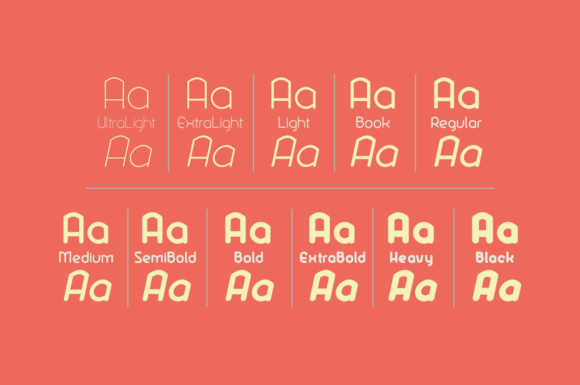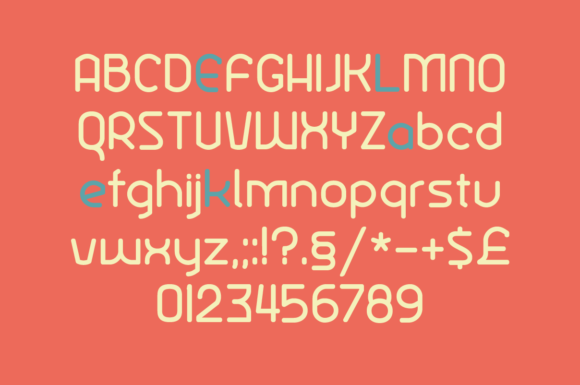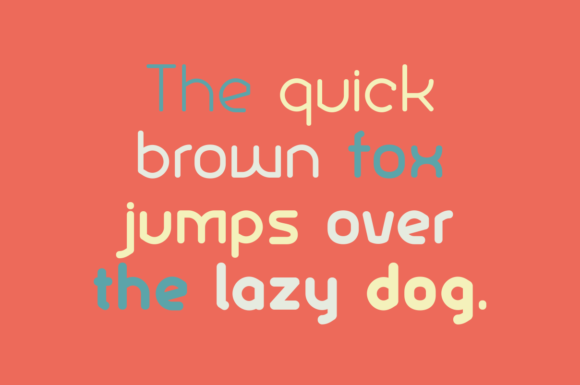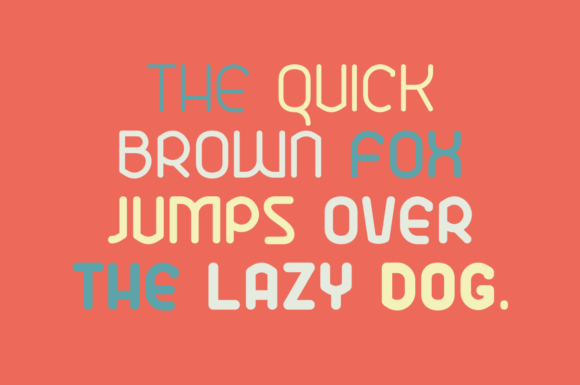
Introducing Ekela Font: The Ultimate Sans Serif for Creative Projects
Are you tired of using the same old fonts for your design projects? Look no further than Ekela Font, a minimal and neat sans serif font that’s perfect for adding a touch of modernity to your creative ideas. With its clean lines and simple aesthetic, Ekela Font is an incredibly versatile typeface that can easily be matched to a wide range of projects.
What Makes Ekela Font So Special?
Ekela Font is a sans serif font, which means it doesn’t have the small lines or flourishes that are characteristic of serif fonts. This makes it a great choice for projects where you want a clean and minimalist look. The font is also highly legible, making it perfect for use in body text, headings, and titles.
Key Features of Ekela Font
- Minimal and neat design: Ekela Font has a simple and uncluttered design that’s perfect for modern designs.
- Highly legible: The font is easy to read, even at small sizes.
- Versatile: Ekela Font can be used for a wide range of projects, from digital designs to print materials.
- Easy to pair: The font can be easily paired with other fonts to create a unique and cohesive look.
How to Use Ekela Font in Your Design Projects
Ekela Font is a highly versatile typeface that can be used in a variety of design projects. Here are a few ideas to get you started:
- Digital designs: Use Ekela Font in your website designs, social media graphics, and email marketing campaigns.
- Print materials: The font is perfect for use in brochures, flyers, posters, and business cards.
- Branding and logos: Ekela Font can be used to create modern and sleek logos that will help your brand stand out.
Tips for Pairing Ekela Font with Other Fonts
One of the best things about Ekela Font is how easily it can be paired with other fonts. Here are a few tips for creating a harmonious font pairing:
- Pair with a serif font: Pairing Ekela Font with a serif font can create a nice contrast and add visual interest to your design.
- Use a font with a similar style: Pairing Ekela Font with another sans serif font can create a cohesive and modern look.
- Experiment with different weights: Using different weights of Ekela Font can add depth and visual interest to your design.
Ekela Font is a highly versatile and modern sans serif font that’s perfect for adding a touch of elegance to your design projects. With its clean lines, simple aesthetic, and high legibility, Ekela Font is an excellent choice for designers and crafters looking to create stunning designs. So why not give Ekela Font a try and see how it can elevate your creative ideas?
Ekela Font: The Perfect Choice for Designers and Crafters
Ekela Font is a must-have for designers and crafters looking to add a touch of modernity to their projects. With its versatility, legibility, and clean design, Ekela Font is the perfect choice for anyone looking to create stunning designs that stand out from the crowd.